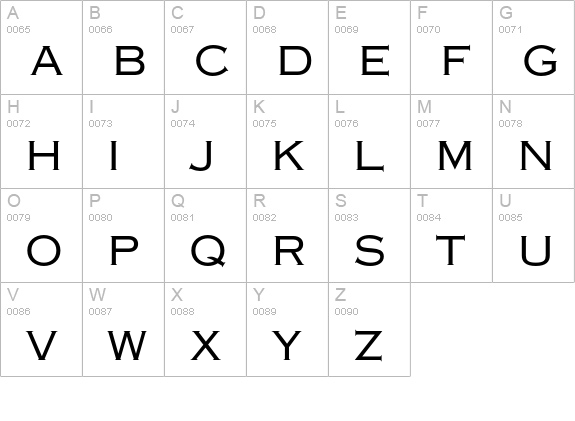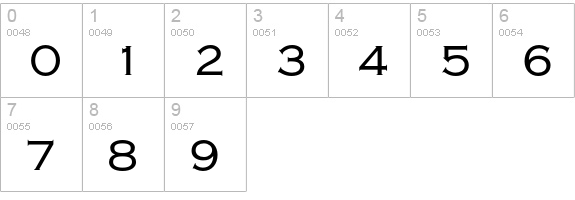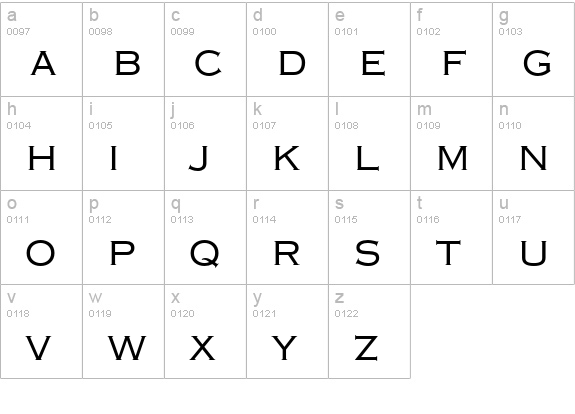
Copperplate Gothic Std 32 AB Font Details
Copperplate Gothic Std 32 AB is a timeless and elegant font that exudes sophistication and class. With its clean lines and sharp angles, this typeface is perfect for adding a touch of refinement to any design project. The bold letterforms make a strong statement while maintaining a sense of grace and style. This versatile font is ideal for a wide range of applications, including branding, editorial design, and signage. Its classic look ensures that it will never go out of style, making it a reliable choice for any project. Best of all, Copperplate Gothic Std 32 AB is freely available to download at FontsMarket.com. Whether you're a seasoned designer looking to add a new font to your collection or a beginner in need of a professional typeface, this font is sure to meet your needs. Don't miss out on the opportunity to enhance your designs with this sophisticated and timeless font.